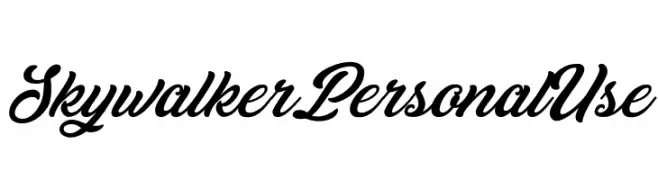
A bold, expressive script font with a hand-drawn, dynamic style.
A flowing, cursive font with elegant loops and swashes, perfect for artistic projects.